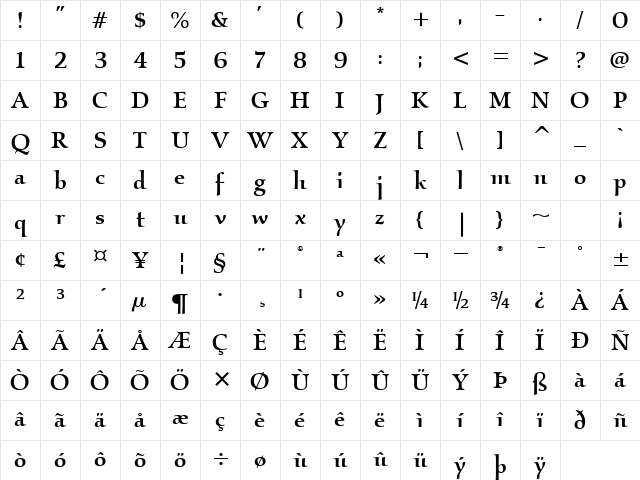
Complete KallosITC-Medium Medium glyph index. Displaying only characters natively supported by KallosITC-Medium Medium font.
KallosITC-Medium is a composed and adaptable typeface that performs quietly and consistently across a wide range of design contexts.
Pro Tip: Use KallosITC-Medium in both headline and body roles to test its range before committing to a single application.